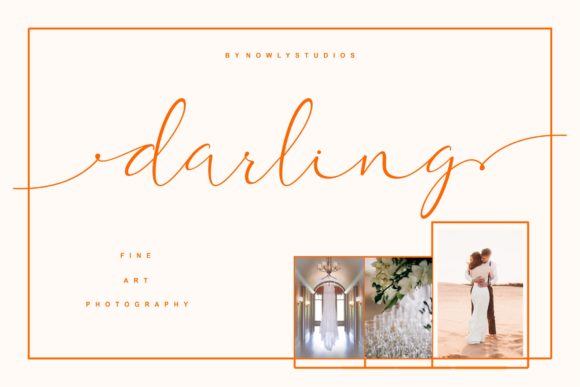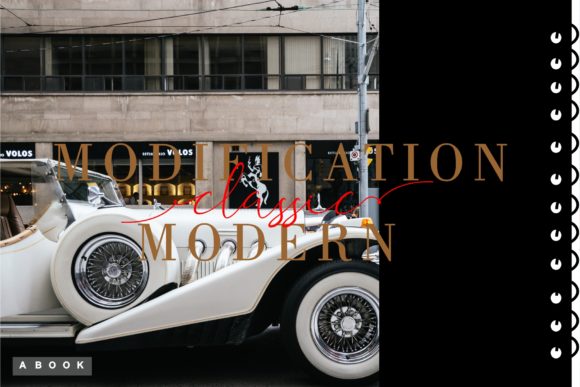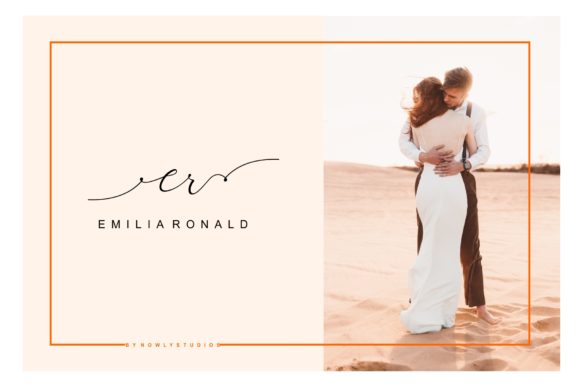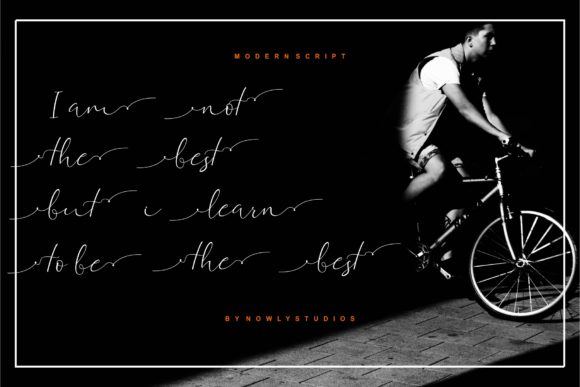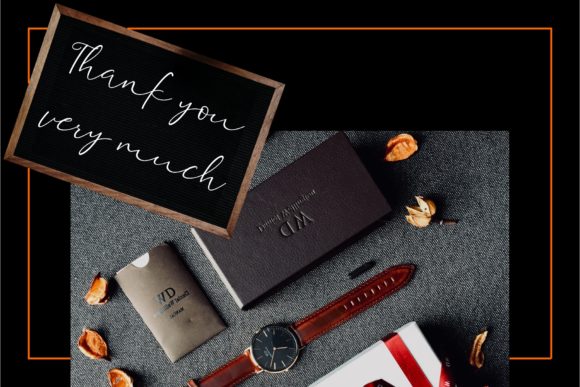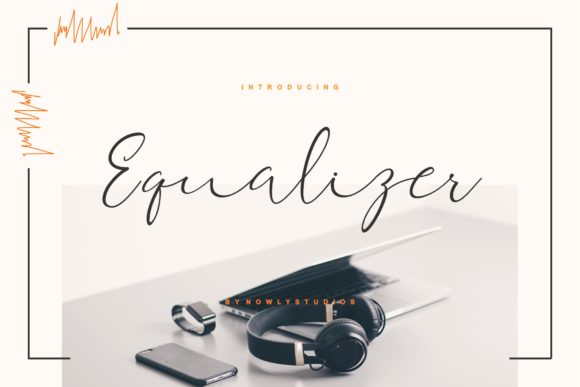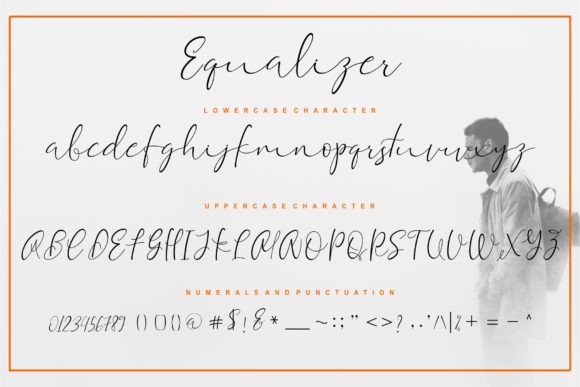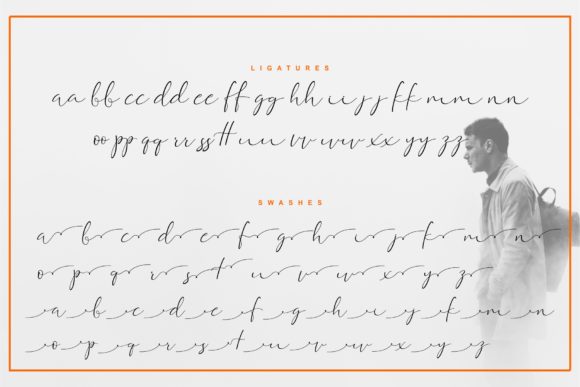
HomePersonal Use FreeEqualizer Script Personal Use Free Equalizer Script FacebookXPinterestWhatsApp 1 of 8 About Equalizer Script Font The Equalizer is a luxurious script. It has a great readability and is perfect for any design which needs to look upscale and chic. DOWNLOAD NOW People also explored Charter Winter Font Tippy Tappy Type Bratome Font Honey Bear West Most Font Miguella Font Deltabrush Font Sunday Monday Font Merchandise Font 436 0 TagsEqualizer Script Font Previous articleCataleyaNext articleCottage LEAVE A REPLY Cancel reply Comment: Please enter your comment! Name:* Please enter your name here Email:* You have entered an incorrect email address! Please enter your email address here Website: Save my name, email, and website in this browser for the next time I comment. Personal Use Free Omira Personal Use Free Read more about this font No Virus Personal Use Free Read more about this font Arnprior Personal Use Free Read more about this font England Personal Use Free Read more about this font BLOG Free Fonts Risk: Why Free Fonts Can Be Dangerous for Designers Free Fonts Risk: Why Free Fonts Can Be Dangerous for Designers Using free fonts is a common practice in web and graphic design. However, the... 5 Fonts That Will Dominate Design Trends in 2026 To increase your work productivity, choose the most readable fonts. Exploring Font Trends